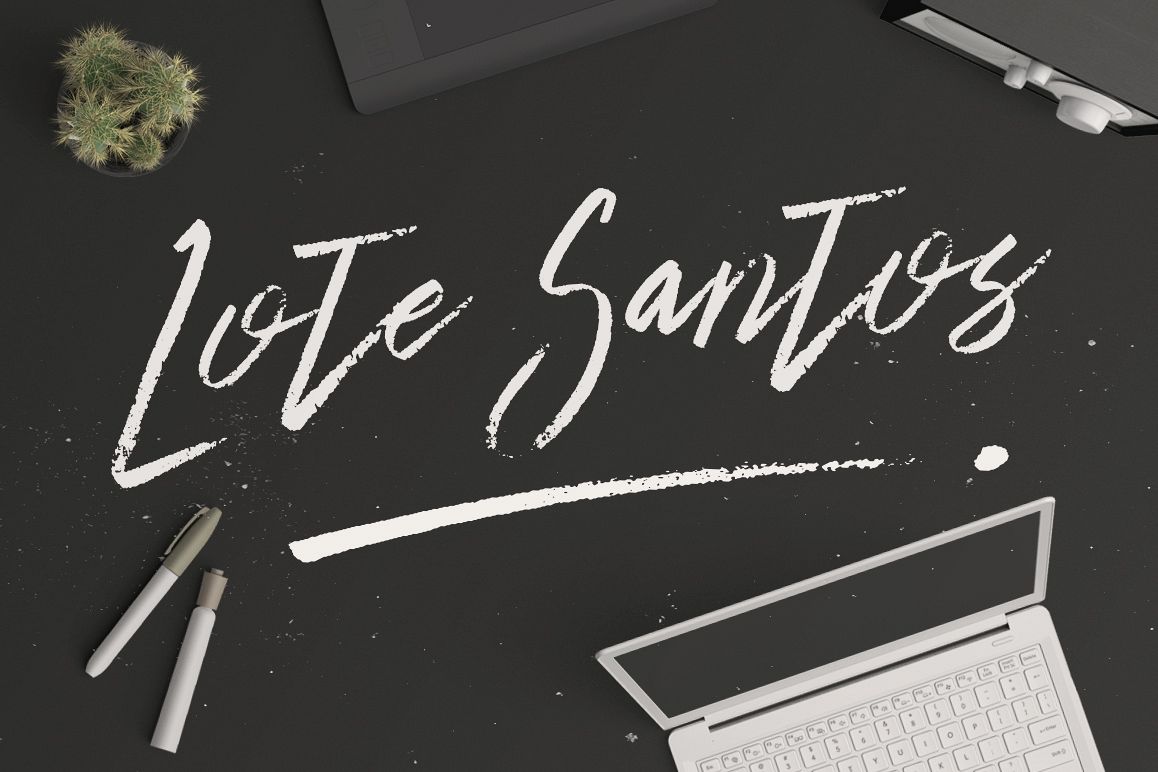
Lote Santos Typeface
Give your designs an authentic brush handcrafted feel. "Lote Santos" is perfectly suited to stationery, logos and much more.Included: